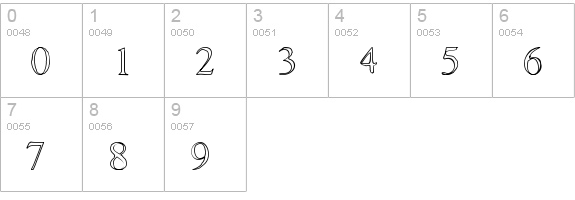
AshaOutline Font Details
AshaOutline font is a beautifully crafted typeface that exudes elegance and sophistication. Its sleek lines and modern design make it perfect for a wide range of projects, from branding to editorial design. This versatile font is ideal for creating eye-catching headlines, stylish logos, and captivating posters. The best part? AshaOutline font is available for free download at FontsMarket.com. Now, you can add a touch of class to your designs without breaking the bank. Don't miss out on this fantastic opportunity to elevate your typography game with the stunning AshaOutline font. Download it today and let your creativity shine!